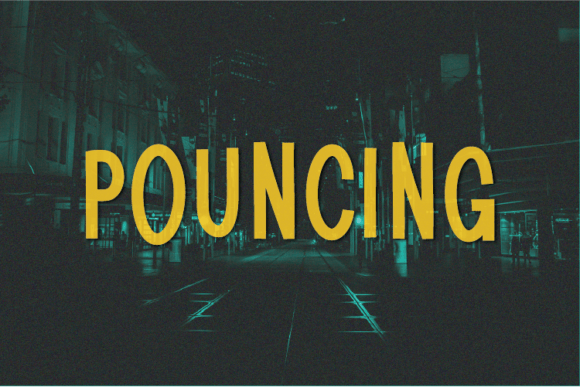
**Introducing Pouncing Font: The Ultimate Display Font for Captivating Visuals**
Step into the world of captivating typography with Pouncing Font, a remarkable sans serif font that will elevate your designs to new heights. Crafted with meticulous attention to detail by renowned font designer Hanna Bie, Pouncing is a creative masterpiece that empowers you to express your unique style with unparalleled flair.
**A Font with a Purpose: Transforming Your Ideas into Visual Delights**
Pouncing Font is not just a font; it's a gateway to expressing your individuality and creativity. Its meticulously designed characters dance across your screen, inviting you to craft visually stunning quotes, elevate your social media presence, and create eye-catching T-shirts that will turn heads. Pouncing is the perfect choice for adding a touch of elegance and sophistication to your creative projects.
**A Font for All Your Creative Pursuits**
Whether you're a budding artist, a seasoned designer, or simply a typography enthusiast, Pouncing Font is the perfect addition to your creative arsenal. Its versatility knows no bounds, allowing you to create stunning visuals for websites, blogs, social media, branding, and more. Let your imagination soar as you explore the endless possibilities that await you with Pouncing Font.
**Join the Creative Revolution: Embrace the Power of Pouncing Font**
Don't settle for ordinary fonts that blend into the background. With Pouncing Font, your designs will leap off the page and captivate your audience. Its unique and expressive style will set your work apart and leave a lasting impression on everyone who sees it.
**Elevate Your Creativity with Pouncing Font**
Unlock the full potential of your creativity with Pouncing Font. Let its captivating characters inspire you to create visuals that resonate with your audience and leave an unforgettable mark. Download Pouncing Font today and embark on a journey of artistic expression that will redefine your design aesthetic.